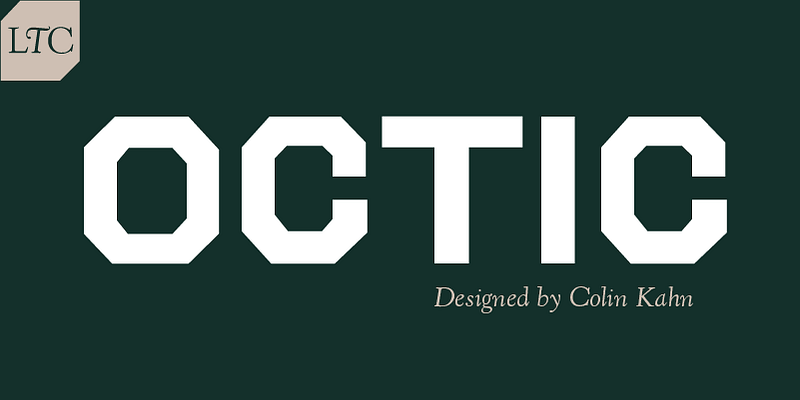
LTC Octic Gothic Font Free Download is a bold and geometric sans-serif typeface that blends vintage industrial charm with a modern edge. Its strong, octagonal letterforms make it ideal for logos, signage, editorial headlines, and any design that calls for a striking and structured appearance. With a distinct architectural feel, this font stands out in both retro and contemporary projects.